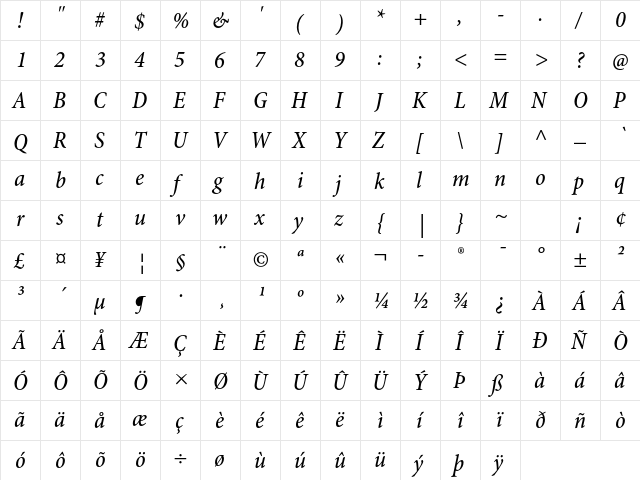
Minion Pro Medium Cond Italic
| Designer | Robert Slimbach |
Design Context for Minion Pro Typeface
Minion Pro offers clean, dependable letterforms without strong stylistic allegiance, making it a practical choice for designers who need flexibility. The dynamic lean of this cut emphasises speed and emphasis in any layout. Its narrow stance lets it pack a punch even in space-constrained designs.
Pro Tip: Use Minion Pro for emphasis, pull quotes, and subheadings where its slanted energy can add rhythm to the layout.